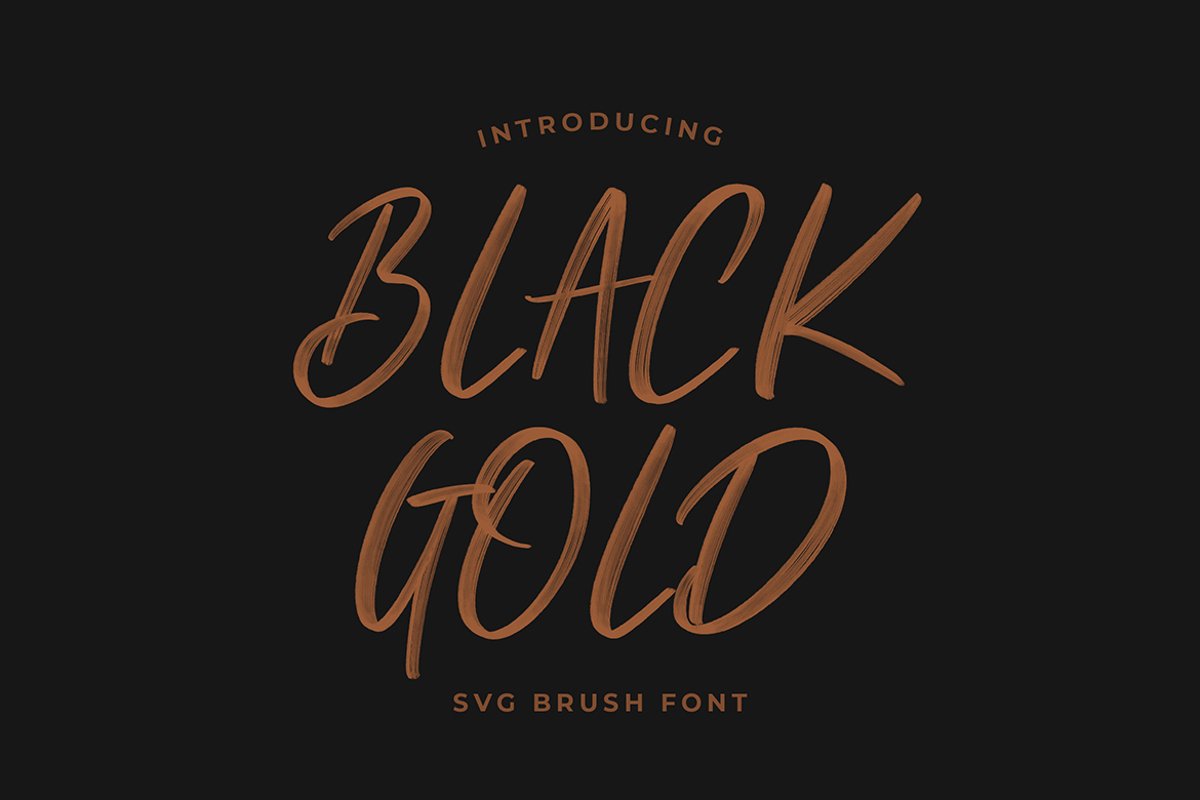
Black Gold Svg Brush Font
Black Gold Svg Brush Font is an exciting SVG font font with brush style. This beautiful script can make your text appear elegant, luxurious, and modern!This font perfect for branding projects, logo, book cover design, tshirt designs, social media posts, advertisements, product packaging, product designs, label, watermark, invitation, stationery and any projectsWhat's Included :